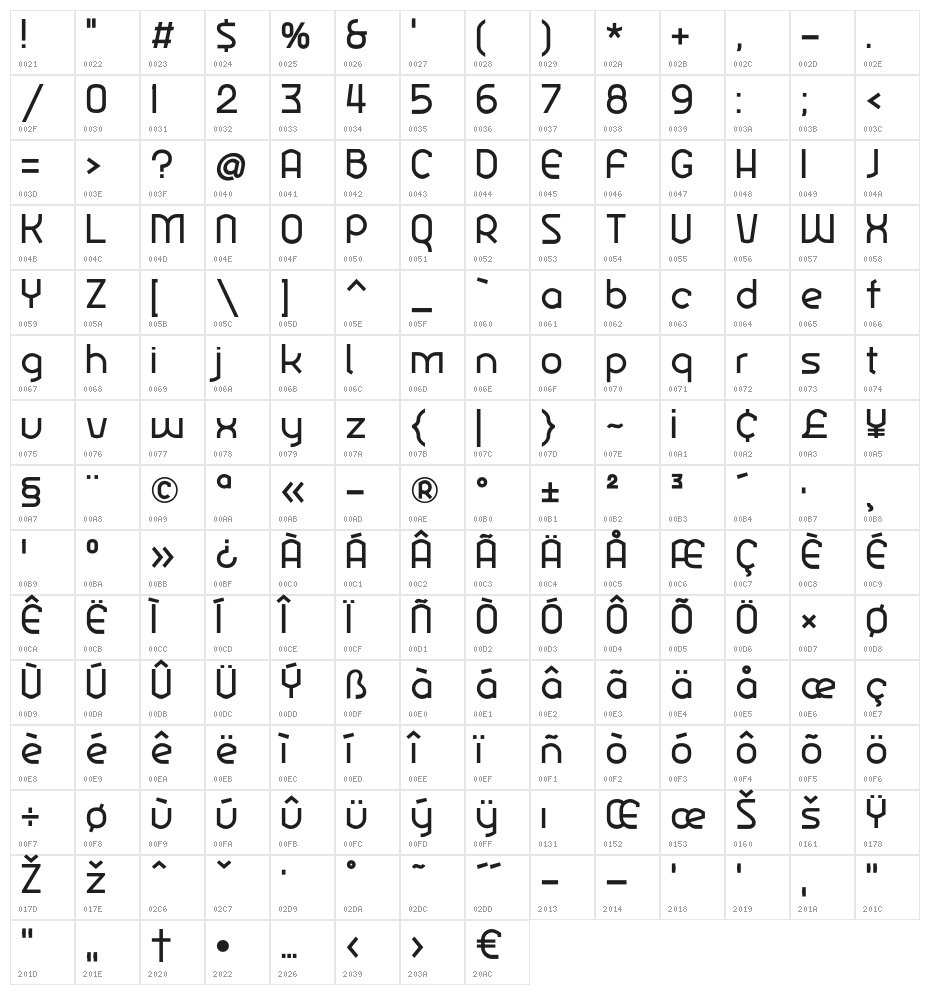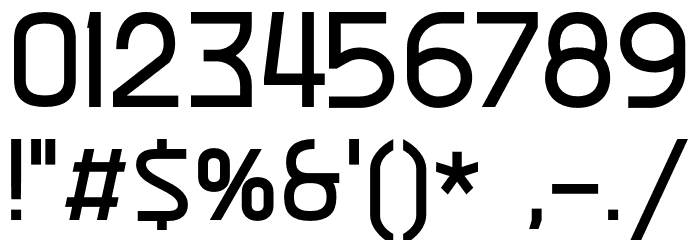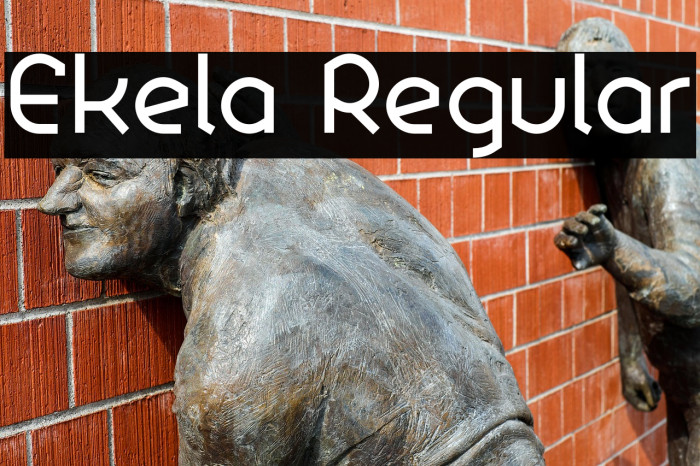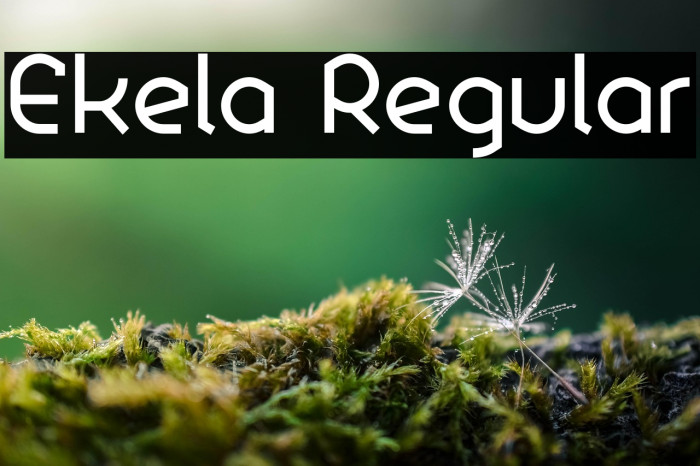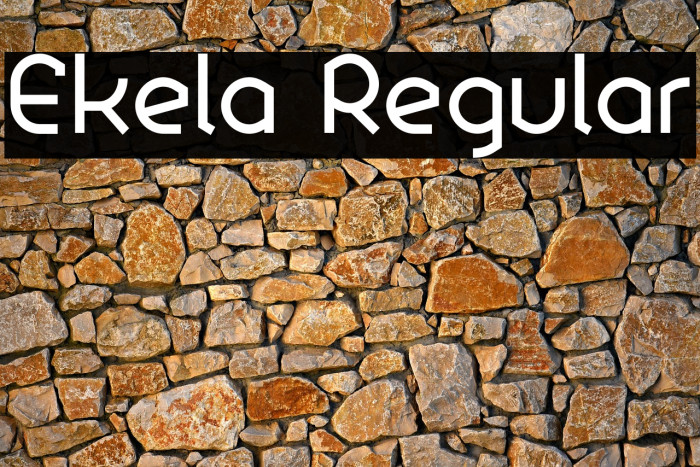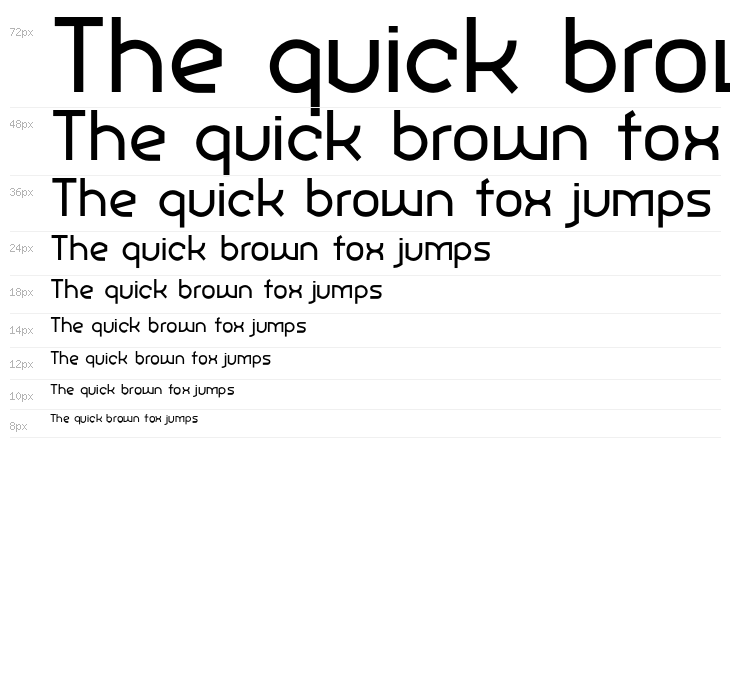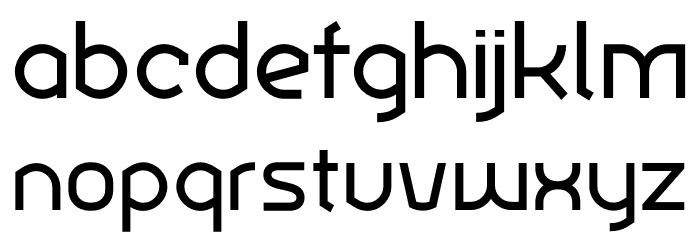
Ekela Regular Font
Ekela Regular Description
This font features a modern and geometric design, characterized by its clean lines and angular shapes. The uppercase letters are bold and structured, with a consistent height and width that gives a uniform appearance. The lowercase letters maintain the geometric style, offering a harmonious balance between the two cases. Numbers are clear and easy to read, with a similar geometric flair that ensures legibility. Special characters are well-integrated, maintaining the overall aesthetic of the font. The design is versatile, suitable for both digital and print media, and can be used effectively in various design contexts.
| Use Case | Headlines, Logos, Digital media |
| Proposed Projects | Ideal for branding, digital media, posters, and modern web design. |